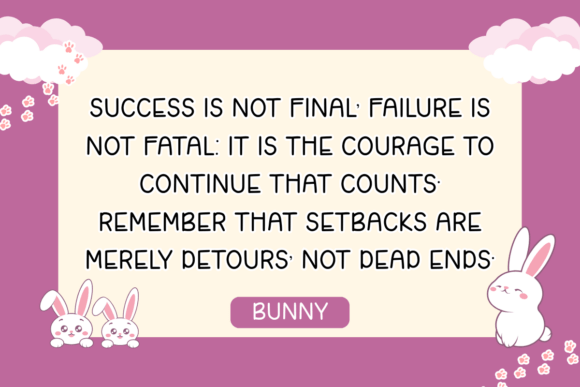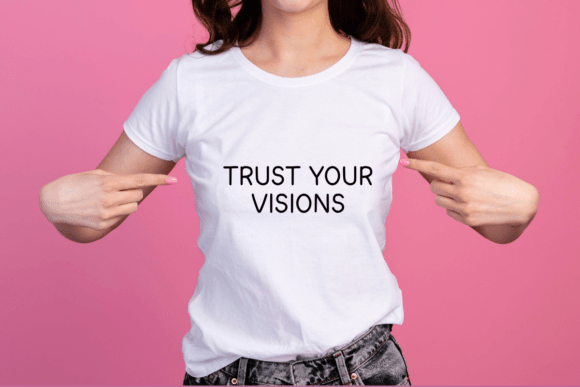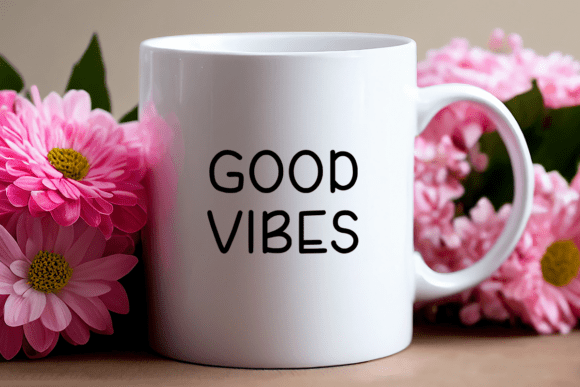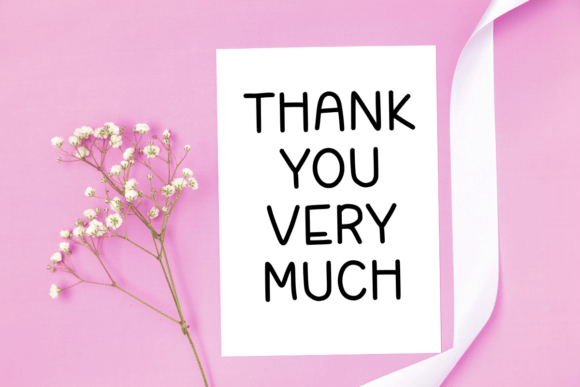
Bunny Font: The Perfect Addition to Your Creative Projects
Are you a designer or crafter looking for a font that can add a touch of whimsy and playfulness to your projects? Look no further than the Bunny Font! This simple and cute handwritten font is inspired by natural handwriting and features a rounded and friendly look that’s perfect for a wide range of creative endeavors.
What is Bunny Font?
Bunny Font is a unique and charming font that’s designed to bring a smile to your face. With its soft and rounded edges, this font is reminiscent of handwritten notes and scribbles in a journal. Its friendly and approachable look makes it perfect for projects that require a personal touch.
Uses for Bunny Font
The versatility of Bunny Font is one of its best features. This font can be used for a wide range of projects, including:
- Journals and planners: Add a personal touch to your journal or planner with Bunny Font. Use it to write titles, headings, or even fill in notes and to-do lists.
- KDP interiors: Create beautiful and unique interiors for your Kindle Direct Publishing (KDP) books using Bunny Font.
- Canva templates: Use Bunny Font to create stunning Canva templates for social media, blogs, or websites.
- Birthday and baby shower designs: Add a playful touch to your birthday and baby shower designs with Bunny Font. Create adorable invitations, cards, and decorations.
- Greeting cards and stickers: Use Bunny Font to create cute and personalized greeting cards and stickers for any occasion.
- Diaries and tumblers: Add a touch of personality to your diary or tumbler with Bunny Font. Use it to write quotes, lyrics, or simply to decorate your pages.
- Sublimation projects: Create stunning sublimation projects, such as t-shirts, mugs, or phone cases, using Bunny Font.
- DIY crafts: Use Bunny Font to add a personal touch to your DIY crafts, such as scrapbooking, card making, or paper crafting.
Why Choose Bunny Font?
So, why should you choose Bunny Font for your creative projects? Here are just a few reasons:
- Unique and playful: Bunny Font is a one-of-a-kind font that’s sure to add a touch of whimsy to your projects.
- Easy to read: The rounded and friendly look of Bunny Font makes it easy to read, even in small sizes.
- Versatile: Bunny Font can be used for a wide range of projects, from digital to print.
- Cute and adorable: Let’s face it – Bunny Font is just plain cute! It’s perfect for projects that require a playful touch.
Tips for Using Bunny Font
Here are a few tips for getting the most out of Bunny Font:
- Experiment with colors: Bunny Font looks great in a variety of colors, so don’t be afraid to experiment and find the perfect hue for your project.
- Mix and match: Combine Bunny Font with other fonts or graphics to create a unique and eye-catching design.
- Use it sparingly: While Bunny Font is cute and playful, it can be overwhelming if used too much. Use it sparingly to add a touch of whimsy to your project.
Bunny Font is a versatile and adorable font that’s perfect for designers and crafters looking to add a touch of whimsy to their projects. With its rounded and friendly look, this font is sure to bring a smile to your face. Whether you’re creating journals, planners, greeting cards, or DIY crafts, Bunny Font is the perfect addition to your creative toolkit.